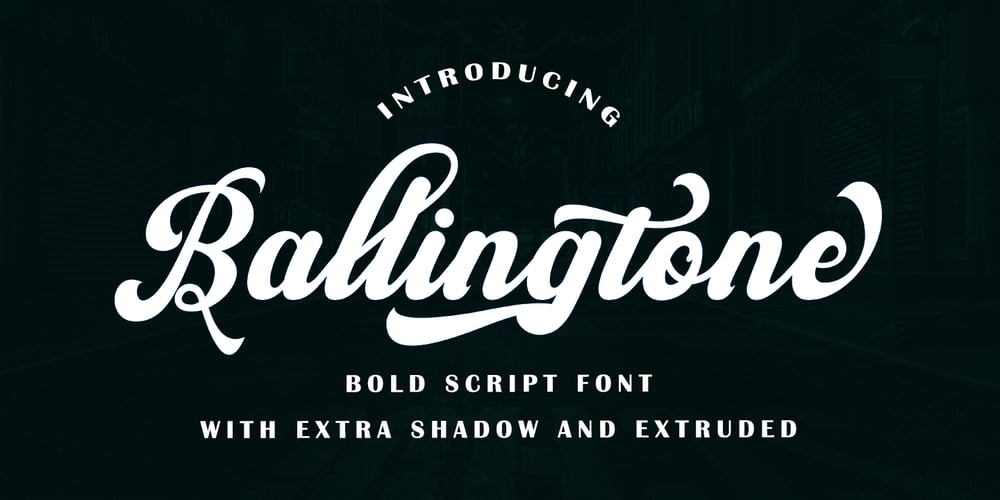
Ballingtone Font Family was designed by Iqbal Amsar Hidayat and published by Bal Studio. Ballingtone contains 6 styles and family package options. Ballingtone Script is retro signage font, and bold with shadows and extruded style. There are so many variations on each character. Include Opentype stylistic alternates, standard ligatures and multilingual support. You are able to create so many different typographical layouts easily and quickly. Make sure you use OpenType savvy program and simply open Glyph Palette to access all of the glyphs.This font is suitable for t-shirts, signage, logos, branding, packaging etc.